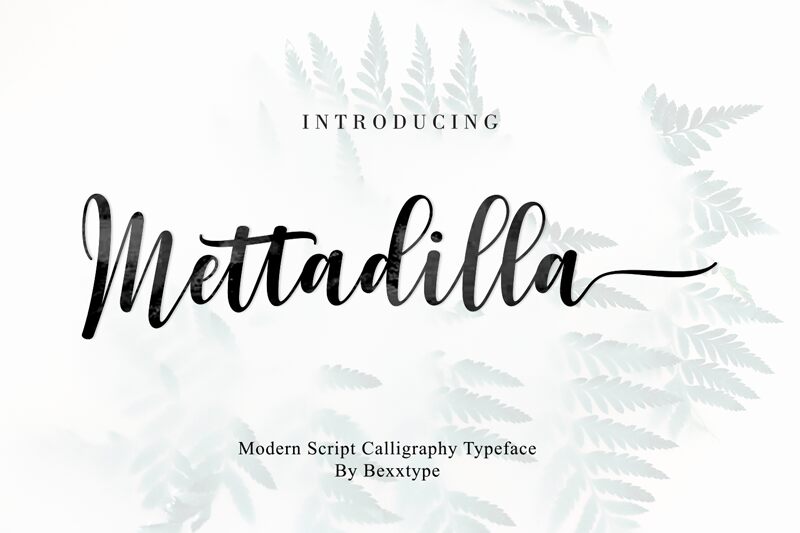
Mettadilla is a captivating calligraphy-inspired font that exudes elegance and sophistication. Crafted by the talented designer Syahputra/Bexxtype, this font showcases a harmonious blend of flowing strokes and subtle flourishes, creating a sense of effortless grace. The striking contrast between thick and thin lines, combined with the graceful curves and sweeping gestures, lend Mettadilla a distinct personality that adds a touch of refinement to any design.
This versatile font shines in a variety of applications, from high-end branding and editorial layouts to invitations and wedding stationery. Its timeless appeal makes it a compelling choice for those seeking to infuse their designs with a touch of timeless charm and understated sophistication.
Mettadilla